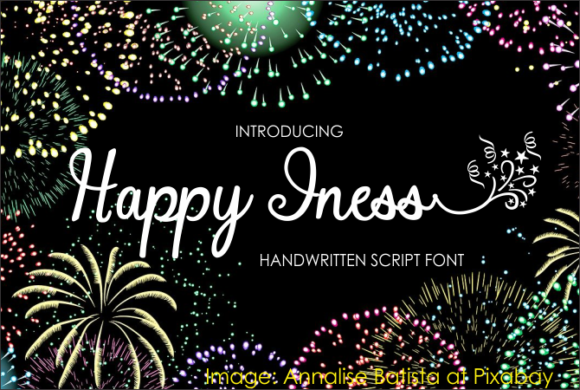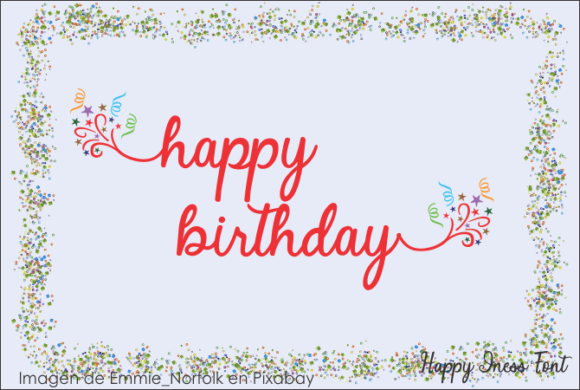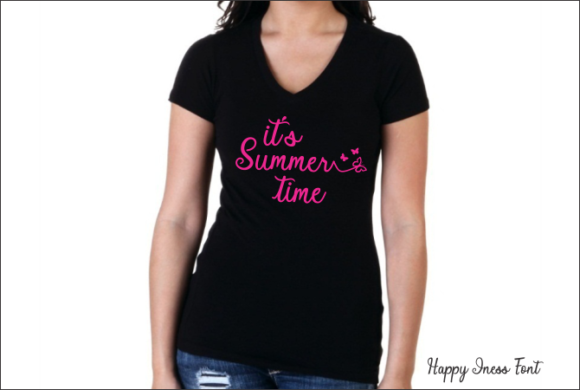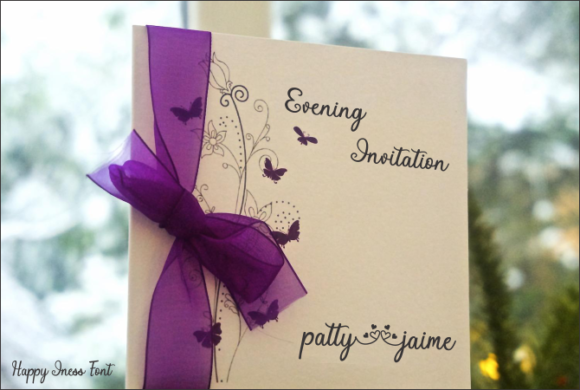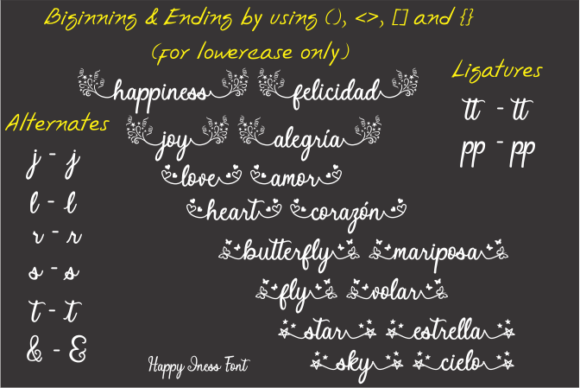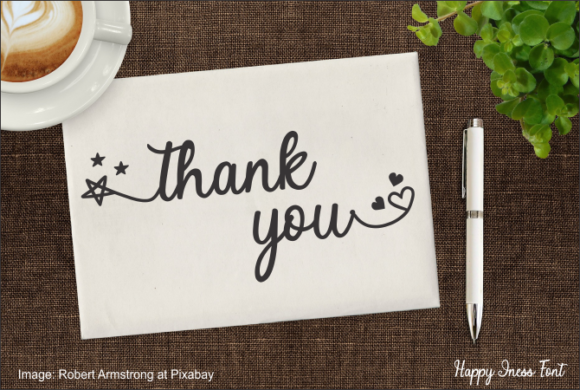
Happy Iness Font
About Happy Iness Font
Happy Iness is a delicate, elegant and flowing handwritten font. It has beautiful and well balanced characters and as a result, it matches a wide pool of designs. Add it to your most creative ideas and notice how it makes them come alive!